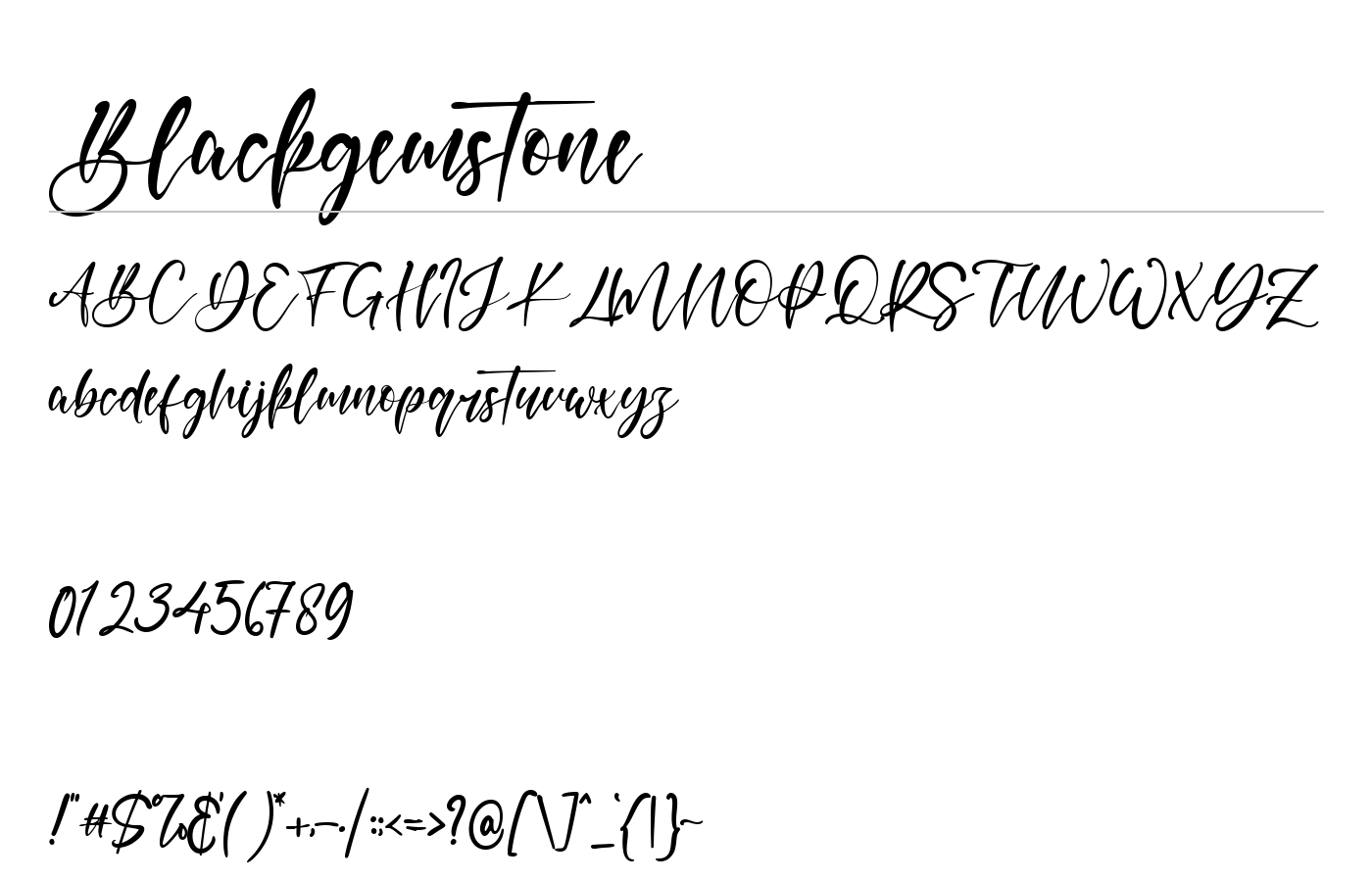
Blackgemstone is an elegant, handwritten script font featuring flowing, connected letterforms with a natural, calligraphic touch. Its medium weight and fluid strokes give it a stylish yet approachable personality, perfect for branding, invitations, and feminine or creative design projects that need a personal, sophisticated look. This font excels in headlines and logos where a graceful, handcrafted feel is desired.
Blackgemstone Font
About Blackgemstone Font